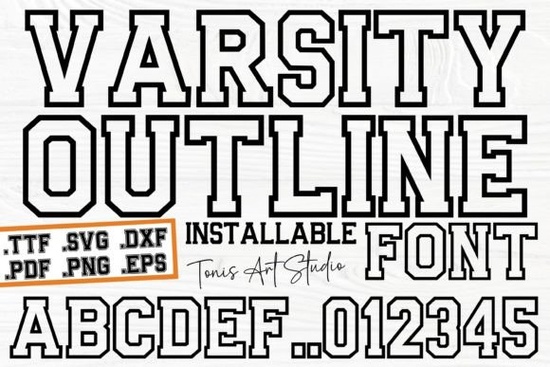
If you're looking for a clean, sporty, and instantly recognizable font for t-shirts, team gear, or college-themed decor, the Ab Varsity Outline Font fits right in. It’s not overly decorative or trendy just straightforward, bold, and built for legibility at any size. Whether you’re cutting vinyl for a cheer squad banner or designing a throw pillow for a grad gift, this outline-style varsity font gives your work that classic athletic feel without needing extra embellishment.
You’ll get uppercase letters only (A–Z), numbers 0–9, and common punctuation like ampersands, periods, and exclamation points. That’s intentional: varsity fonts shine in short, impactful phrases think “STATE CHAMPS”, “FRESHMAN CLASS OF ’25”, or “GO LIONS!”. If you need full lowercase support or extended language characters, this isn’t the font for that job and that’s okay. It does one thing well.
Who uses this and why it works for them
Print-on-demand sellers appreciate how quickly this font converts into bestsellers. A simple “HOME TEAM” design on a black crewneck? Consistently strong in back-to-school and sports seasons. Because it’s an outline font, it pairs easily with solid fills, halftone textures, or distressed overlays giving you visual variety without switching typefaces.
Crafters with Cricut or Silhouette find the SVG files cut cleanly, even at small sizes (down to 1.5 inches tall). The strokes are consistent no hairline gaps or overlapping nodes which means less troubleshooting before hitting “Make It.” And since the outlines are open (not filled), you can weld them with shapes, add inner shadows, or layer them over photos without clipping issues.
Small business owners designing spirit wear for local schools or rec leagues often need something that feels official but doesn’t require licensing. This font walks that line: it evokes tradition without copying any real university mark keeping you safe from trademark concerns while still feeling authentic.
How it compares to other popular sans-serif fonts
Unlike some bolder, blocky varsity fonts, Ab Varsity Outline Font keeps its stroke weight balanced and even. That makes it more versatile than heavier alternatives it reads clearly on both light and dark fabrics, and holds up well in screen printing and sublimation.
- Outline + fill combos work best: Try pairing the Ab Varsity Outline Font with a solid-color background shape behind each letter, or use it as a stroke around a filled version of the same word for a layered effect.
- Avoid tiny text on fabric: While it cuts cleanly at 1.5", anything under 1" may lose definition in heat transfer vinyl or DTG prints. Stick to 1.75" minimum for apparel.
One last note: this isn’t a variable font or a family with weights and italics. It’s a single, focused tool and that’s its strength. You don’t need ten variations to make a strong team banner or a confident graduation card. Just clear letters, consistent lines, and room to build around them.